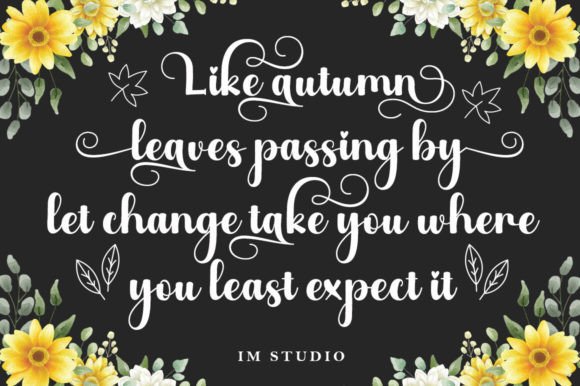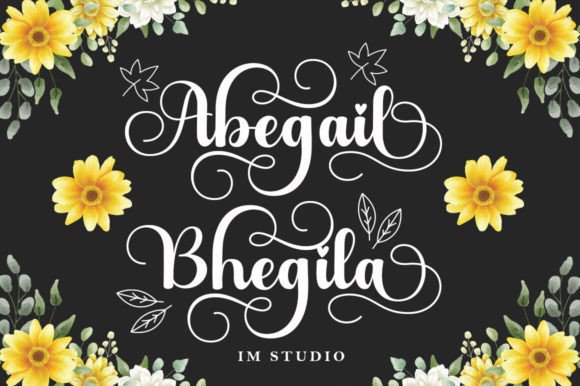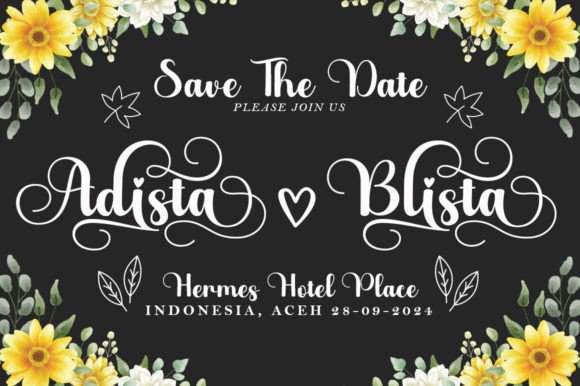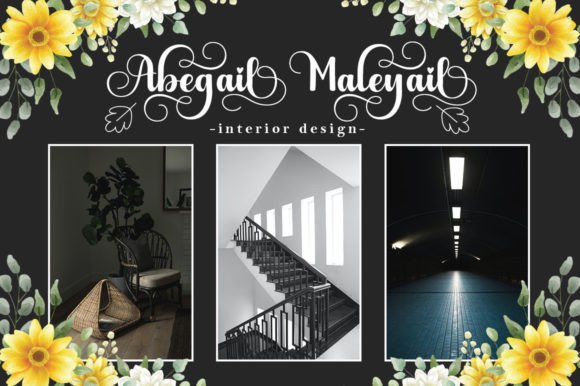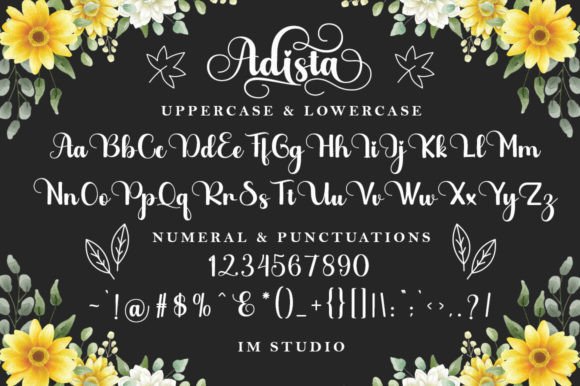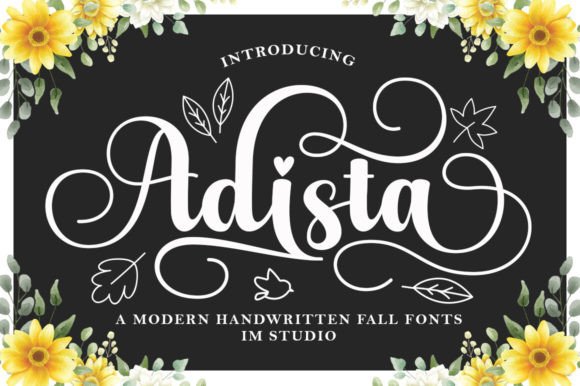
Introducing Adista Font: The Perfect Blend of Elegance and Playfulness
Are you a designer or crafter looking for a font that can add a touch of sophistication and whimsy to your projects? Look no further than Adista Font, a bouncy and bold script calligraphy font that is sure to elevate your designs. With its elegant and modern touch, Adista Font is perfect for a wide range of projects, from Halloween and Fall designs to wedding projects, invitations, stickers, sublimation, cards, birthdays, t-shirt designs, farmhouse designs, and more.
What Makes Adista Font So Special?
Adista Font is a unique and eye-catching font that is sure to make your designs stand out. Its bouncy and bold script calligraphy style gives it a playful and energetic feel, while its elegant and modern touch adds a level of sophistication that is hard to find in other fonts. Whether you’re looking to create a fun and festive design for Halloween or a more formal design for a wedding, Adista Font is the perfect choice.
Uses for Adista Font
Adista Font is incredibly versatile and can be used for a wide range of projects, including:
- Halloween and Fall designs: Add a touch of spooky elegance to your Halloween and Fall designs with Adista Font.
- Wedding projects: Make your wedding designs stand out with the elegant and modern touch of Adista Font.
- Invitations: Create beautiful and eye-catching invitations for any occasion with Adista Font.
- Stickers: Add a touch of whimsy to your stickers with Adista Font.
- Sublimation: Use Adista Font to create stunning sublimation designs that are sure to impress.
- Cards: Create beautiful and unique cards for any occasion with Adista Font.
- Birthdays: Make your birthday designs stand out with the playful and energetic feel of Adista Font.
- T-shirt designs: Add a touch of elegance and sophistication to your t-shirt designs with Adista Font.
- Farmhouse designs: Create beautiful and rustic farmhouse designs with Adista Font.
Why Choose Adista Font?
There are many reasons why Adista Font is the perfect choice for your design needs. Here are just a few:
- Unique and eye-catching: Adista Font is a one-of-a-kind font that is sure to make your designs stand out.
- Versatile: Adista Font can be used for a wide range of projects, from formal to informal.
- Elegant and modern: Adista Font has a sophisticated and modern touch that is hard to find in other fonts.
- Playful and energetic: Adista Font also has a playful and energetic feel that is perfect for designs that need a little extra whimsy.
Tips for Using Adista Font
Here are a few tips for getting the most out of Adista Font:
- Experiment with different colors: Adista Font looks great in a wide range of colors, so don’t be afraid to experiment and find the perfect color for your design.
- Pair with other fonts: Adista Font pairs well with a variety of other fonts, so try pairing it with a sans-serif font for a modern look or a serif font for a more traditional look.
- Use it sparingly: Adista Font is a bold and eye-catching font, so use it sparingly to add emphasis to your design.
Adista Font is a unique and versatile font that is perfect for designers and crafters looking to add a touch of elegance and whimsy to their projects. With its bouncy and bold script calligraphy style and elegant and modern touch, Adista Font is sure to elevate your designs and make them stand out. Whether you’re working on a Halloween design, a wedding project, or anything in between, Adista Font is the perfect choice.